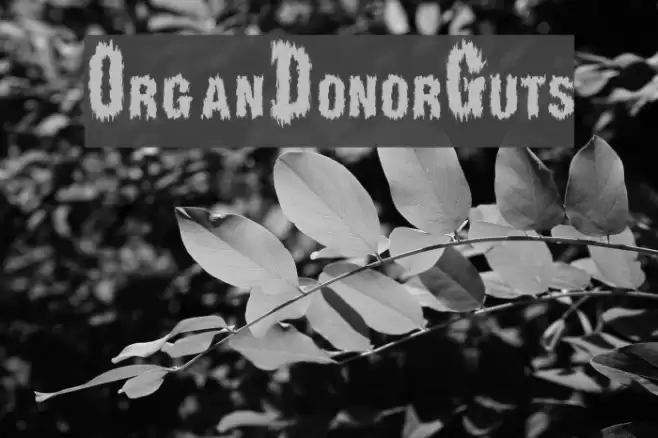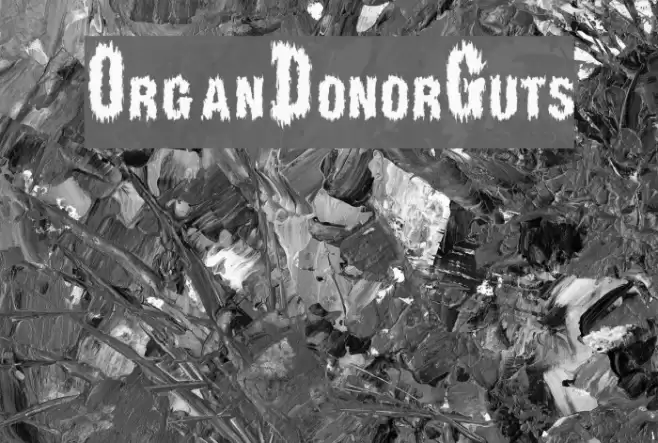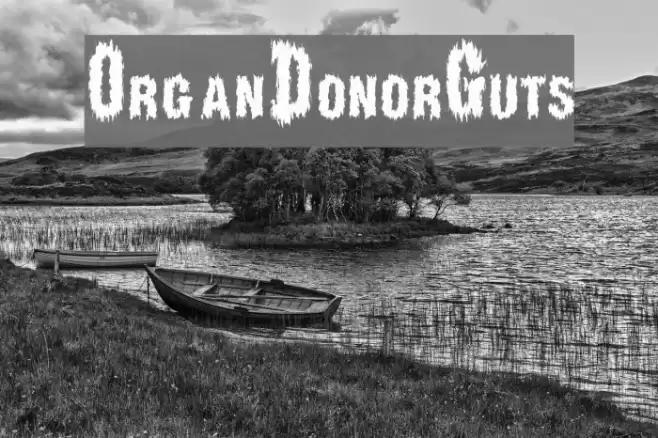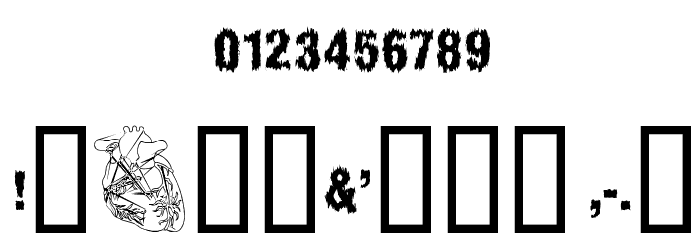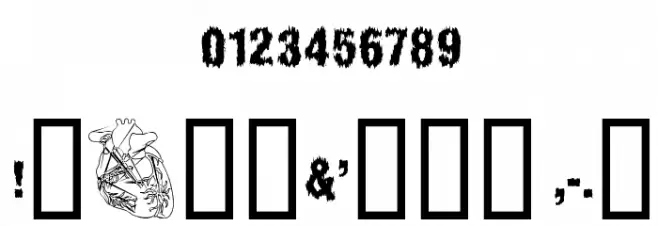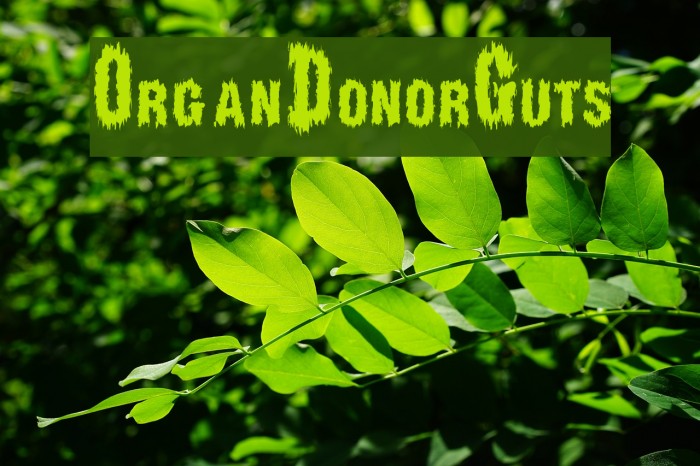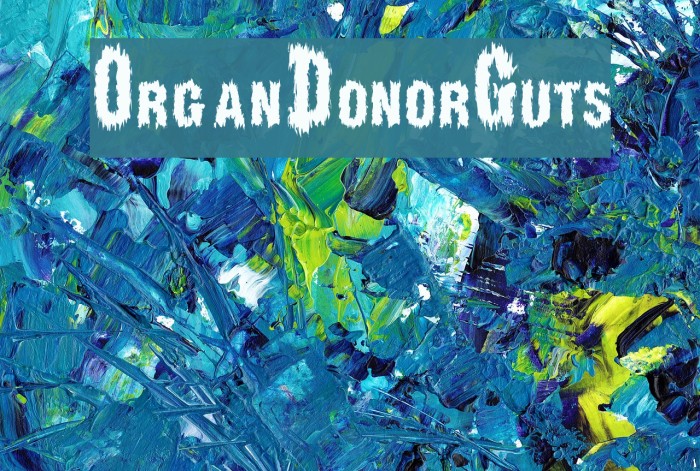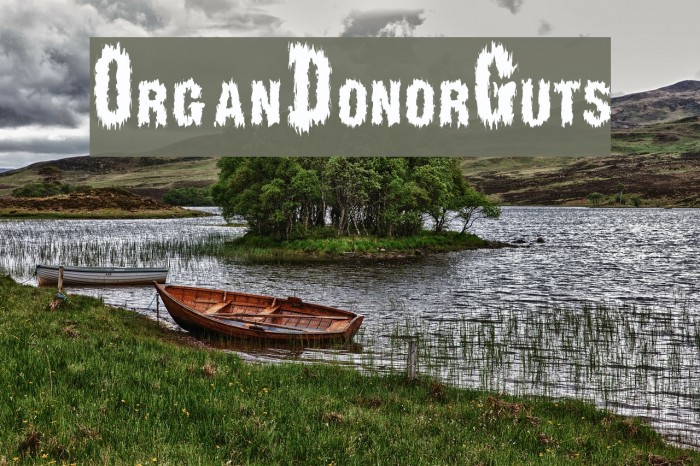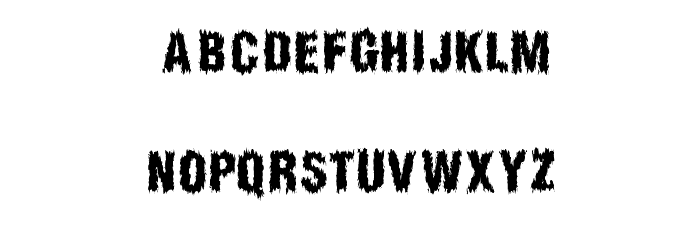
OrganDonorGuts Font
OrganDonorGuts Description
This font features a unique, jagged design that gives it a raw, edgy appearance. The characters are bold and heavily textured, resembling torn or shredded material, which adds a dramatic flair. The uppercase and lowercase letters maintain a consistent style, with the numbers and special characters following suit. This font is ideal for projects that require a strong visual impact, such as horror-themed designs or bold, attention-grabbing headlines. Its distinctive style makes it stand out, ensuring that any text using this font will be noticed.
A bold, jagged font with a raw, edgy appearance from Uncategorized fonts.
- Proposed Projects: Ideal for horror-themed designs, bold headlines, and attention-grabbing posters.